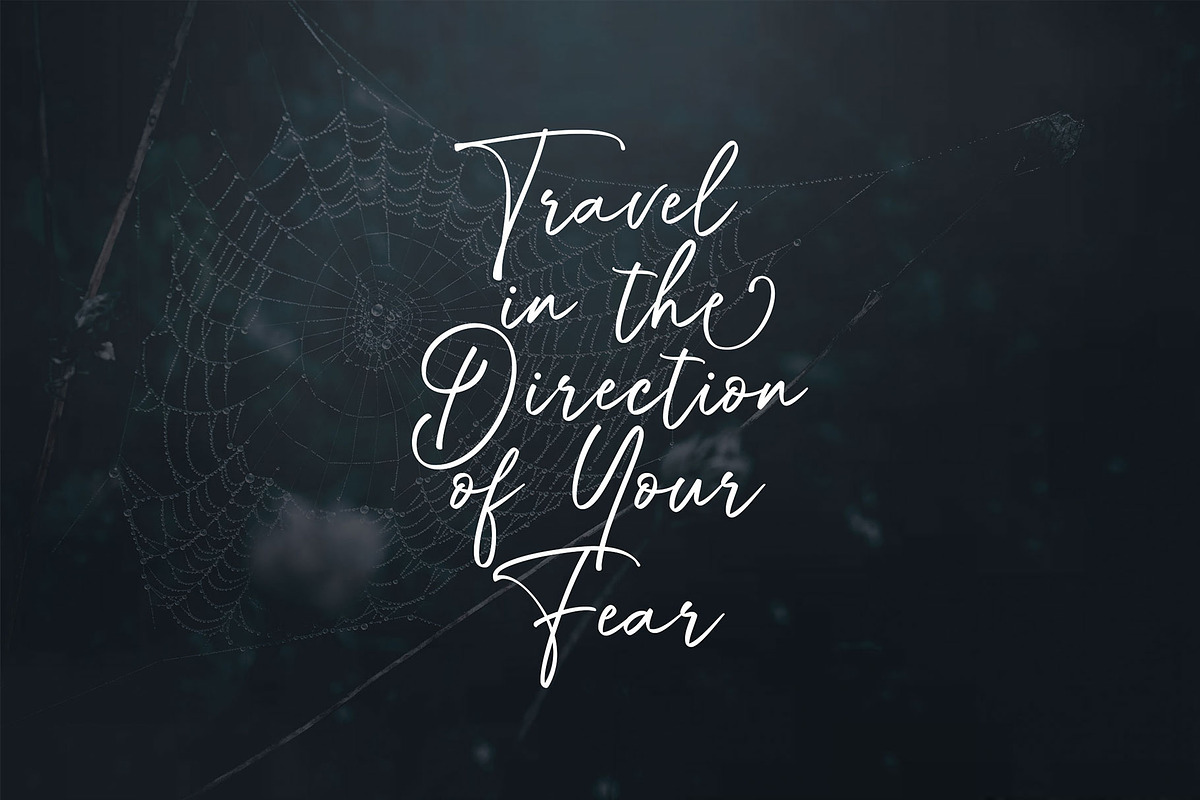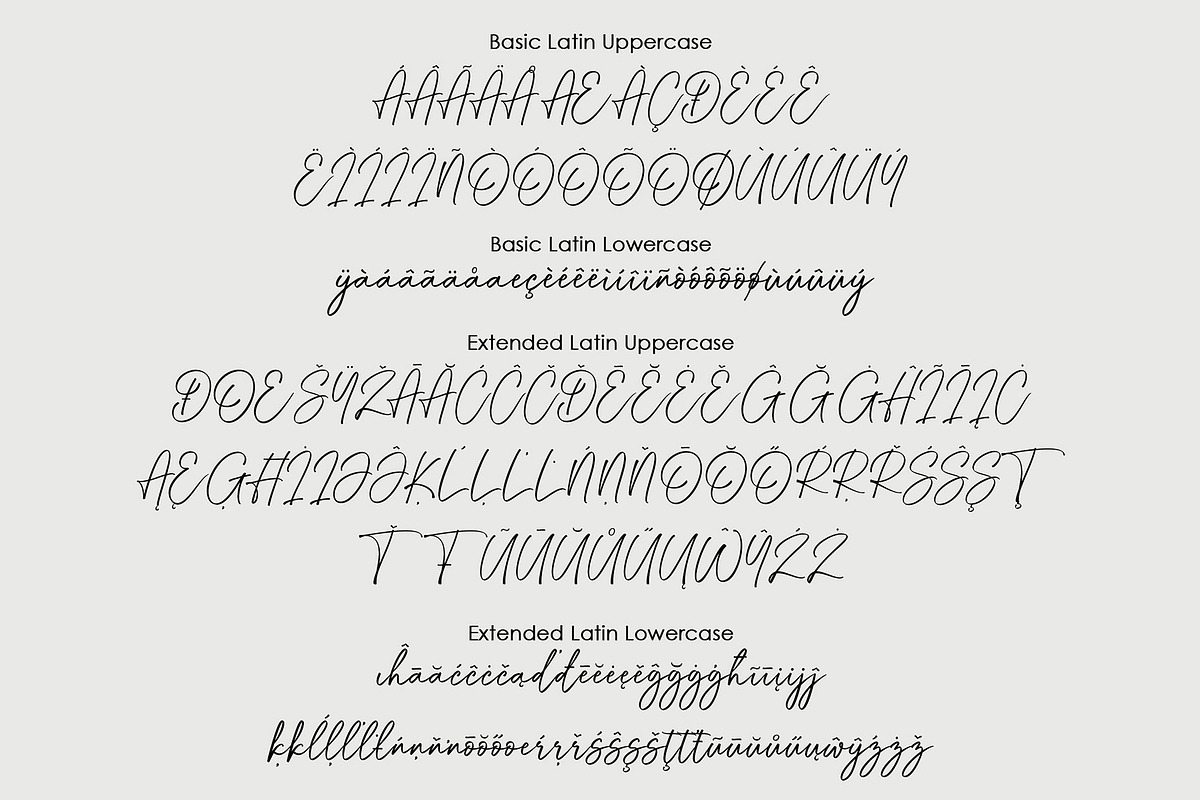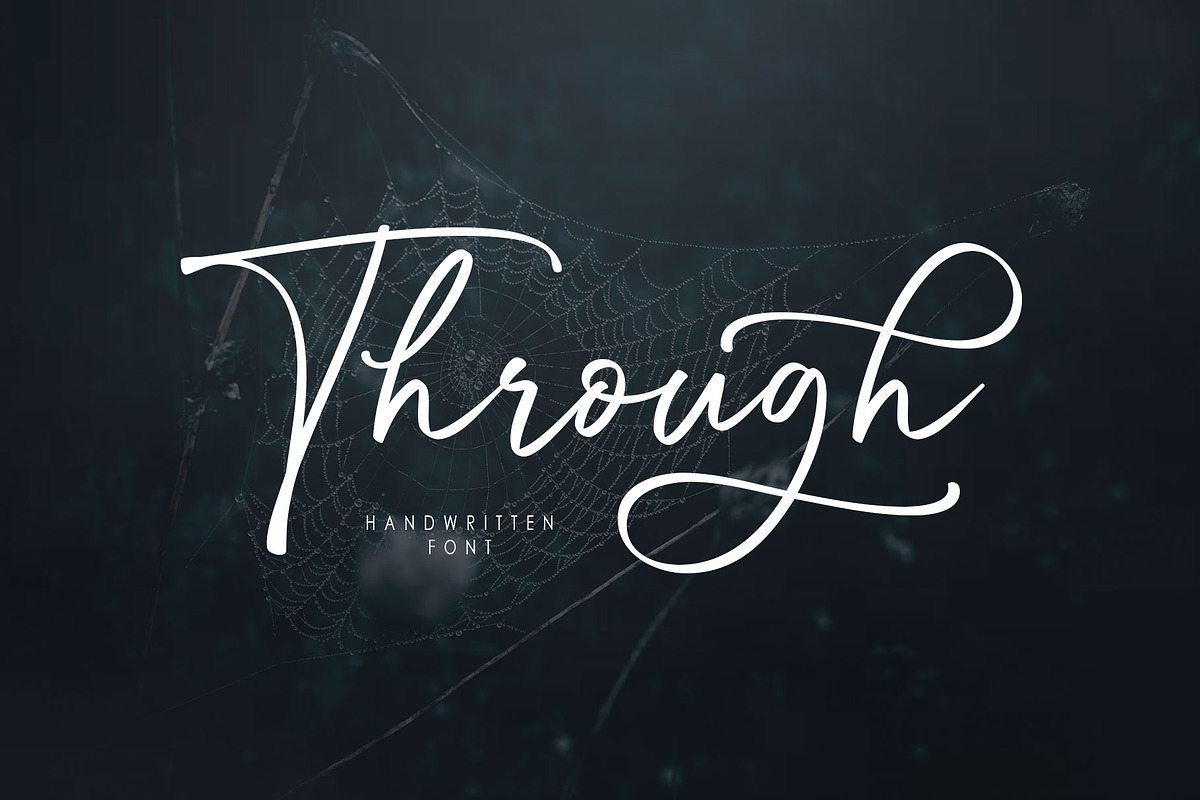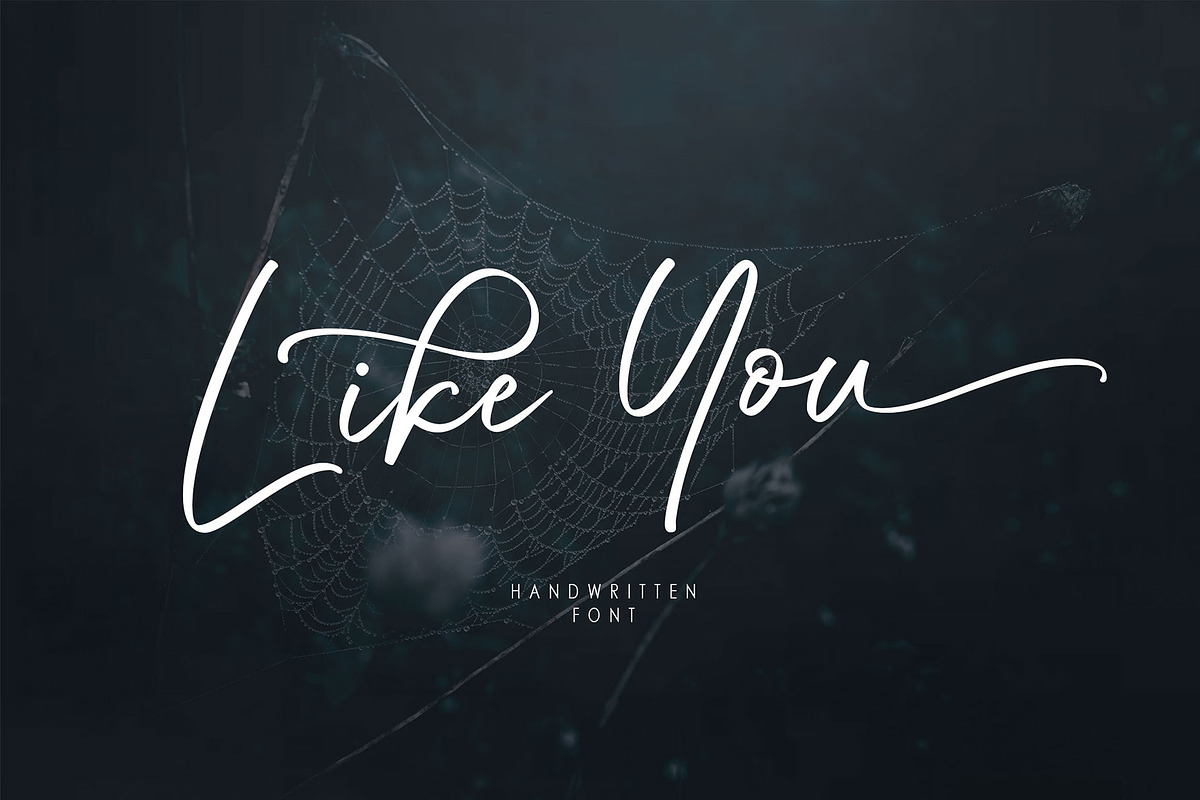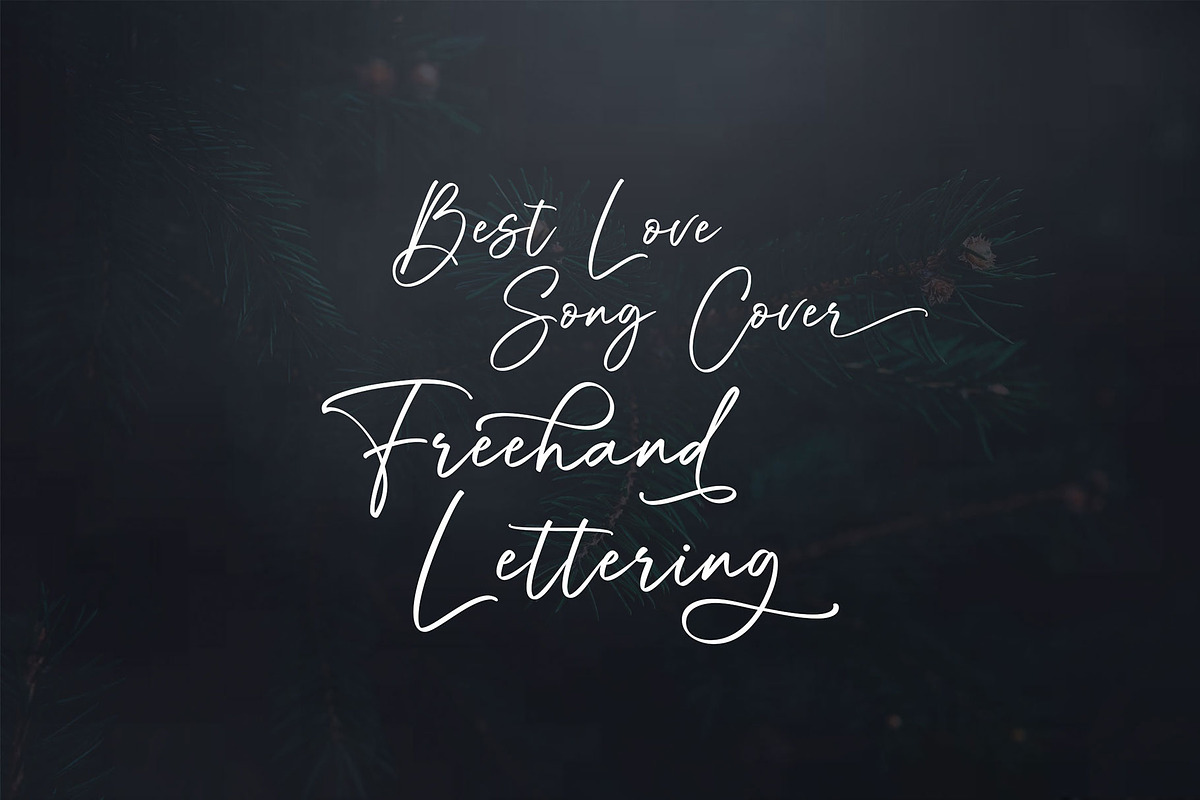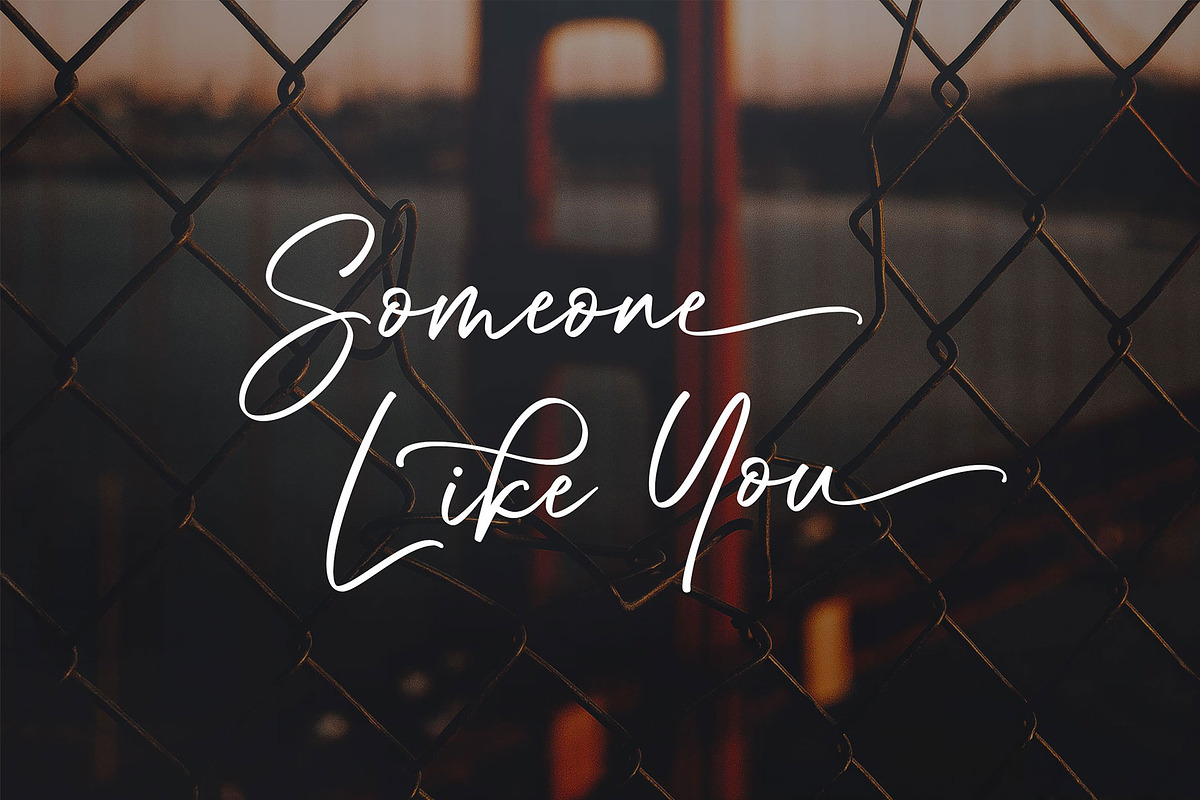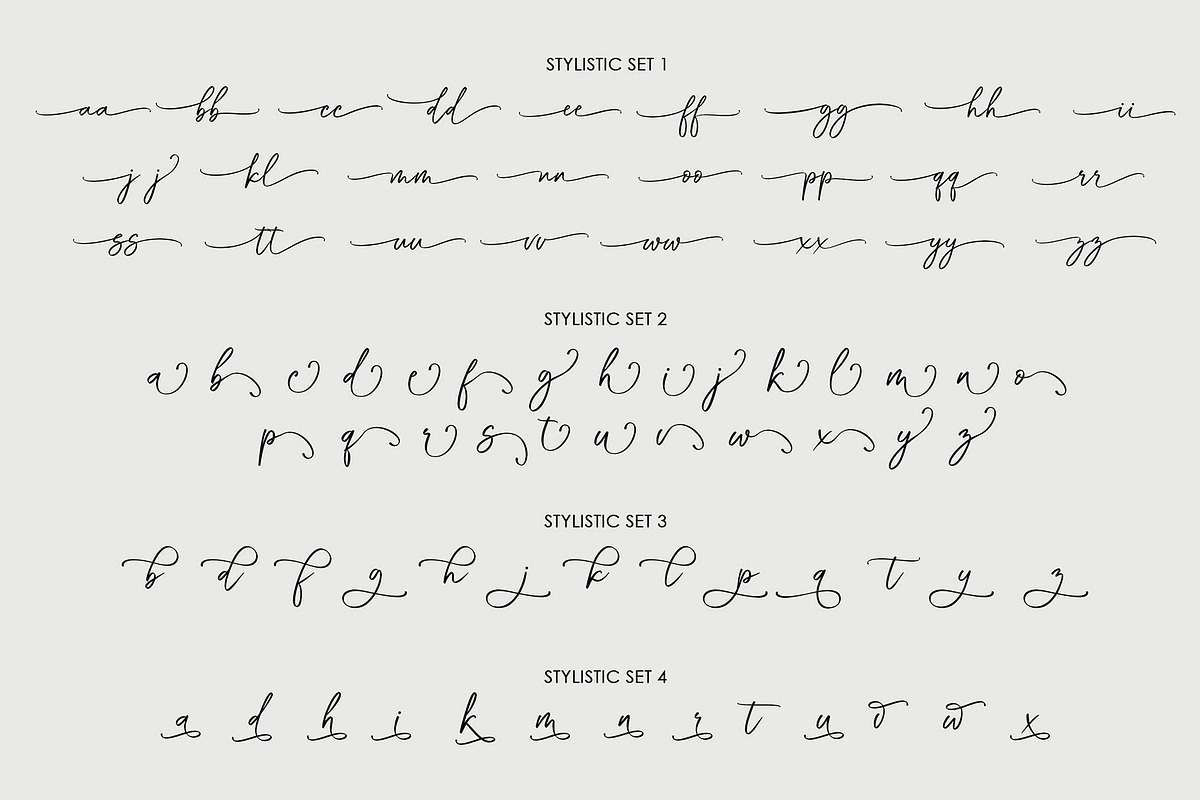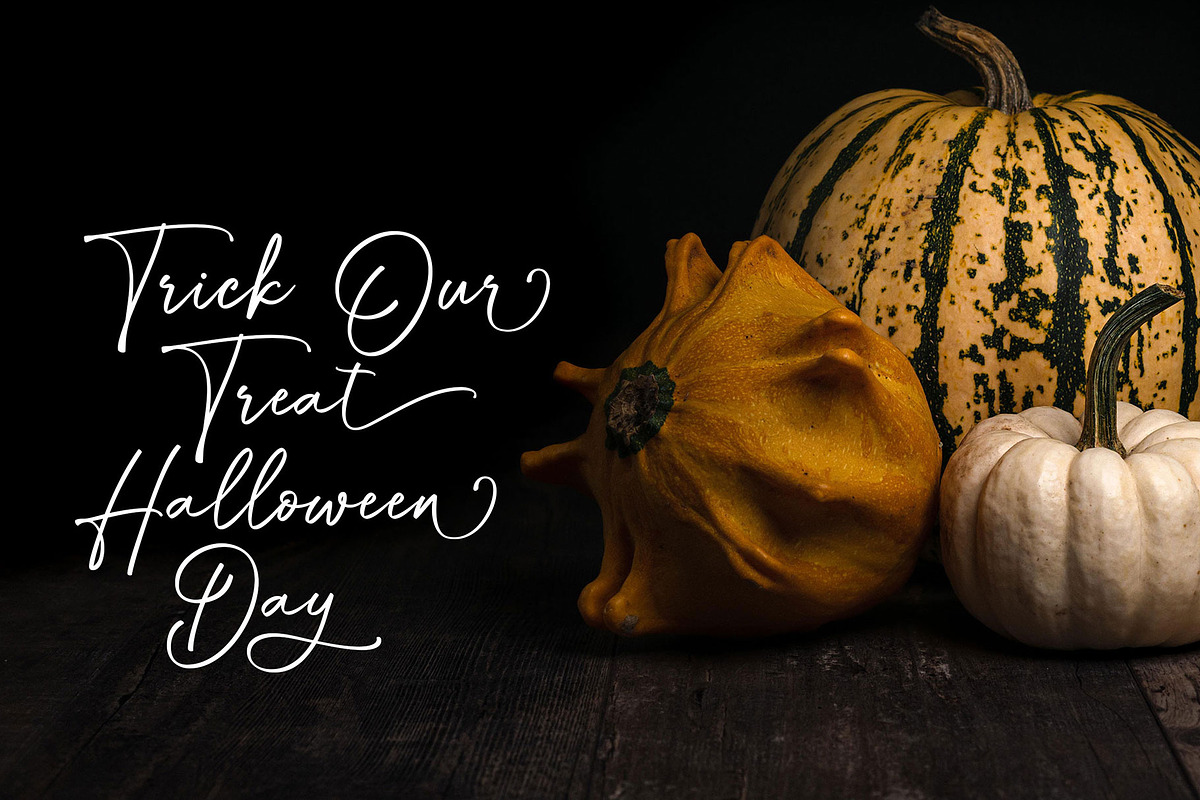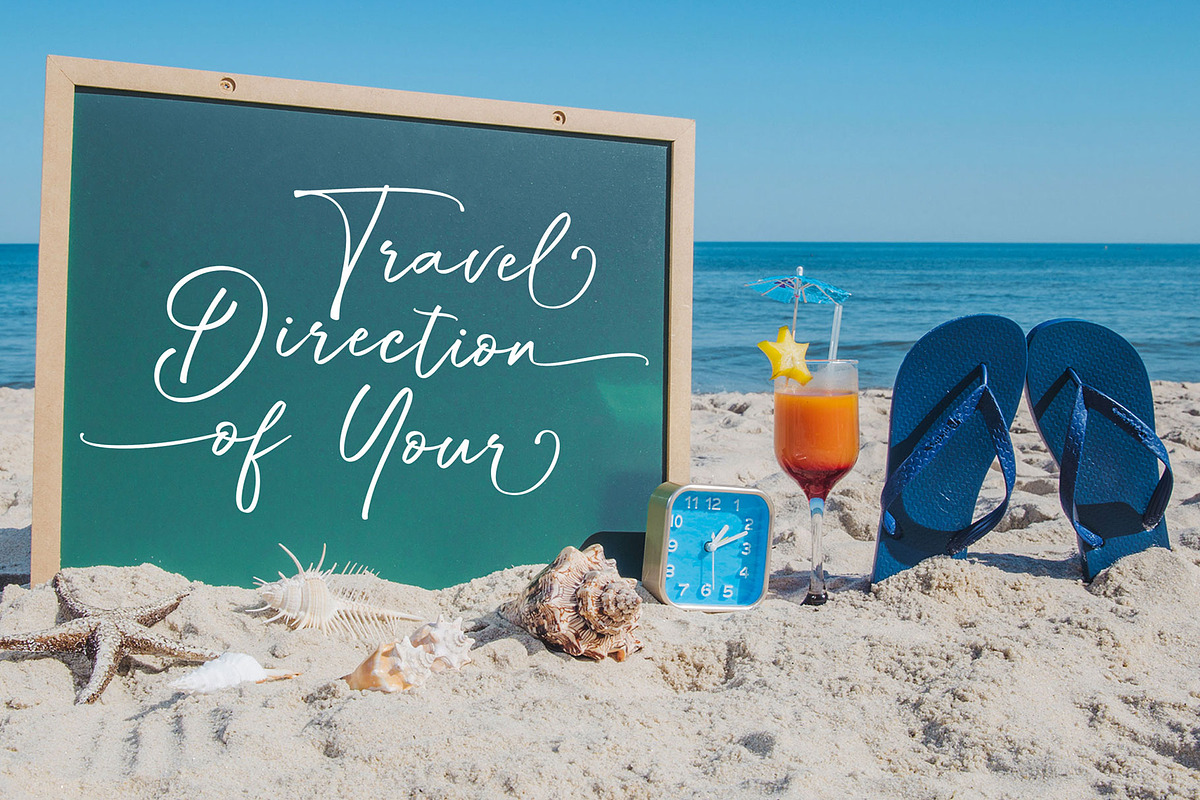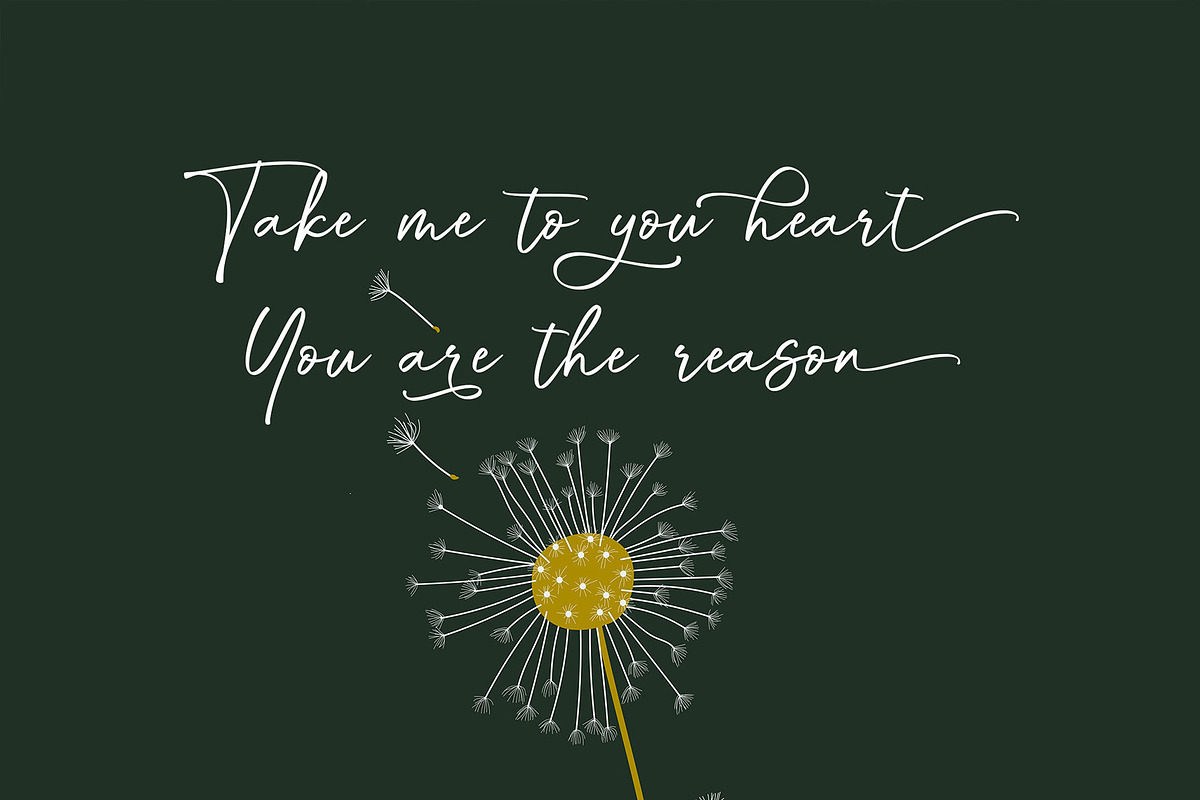
Through Script
Through Script is a and elegant handwritten font. This font is neatly crafted and highly detailed.Use it for any design projects that require a charming appearance!